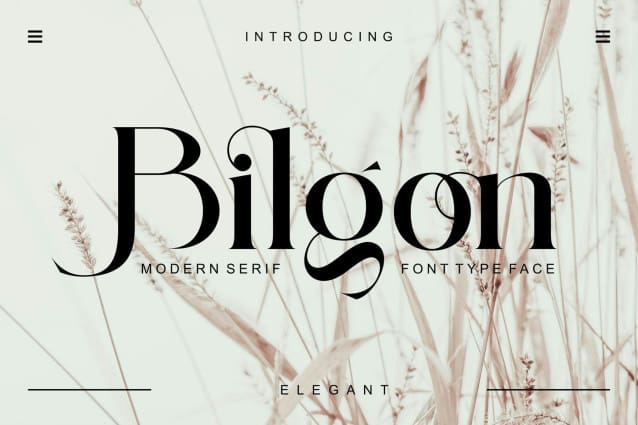
Bilgon Font
Bilgon Font – Modern Serif logo inspired by the famous minimalist logo, perfect for designing templates, brochures, videos, advertising branding, logos, invitations, layouts, elegant crafts, beauty design, etc. .